Born in the San Francisco Bay Area in 1941, he was first introduced to typography and penmanship by Abraham Lincoln Paulsen, spent several years at Hallmark greeting cards where he learned from Hermann Zapf, and trained at the California College of Arts and Crafts, graduating in 1963.
His iconic work includes logos for the Ringling Brothers and Barnum & Bailey Circus, Credence Clearwater Revival, Kansas, and The Doobie Brothers. He was a prominent figure in producing newspaper and magazine logos—including: The New York Times, Los Angeles Times, The Virginian-Pilot, Esquire, Newsweek, Fast Company, Variety, and TV y Novelas, among many others.
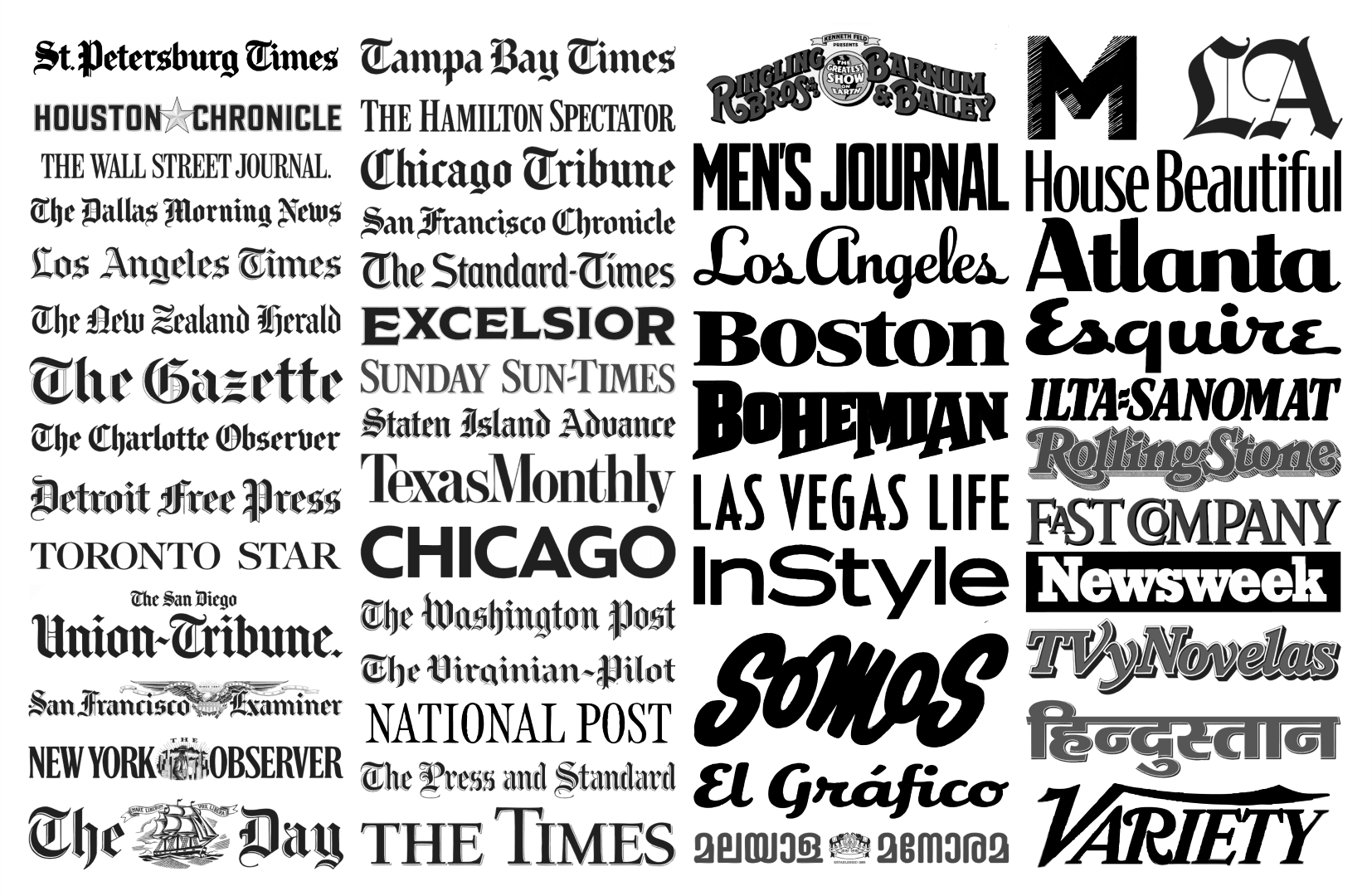
A collection of logos by Jim Parkinson, who always preferred to work in analog formats, and whose mastery of the pen was unmatched.
His work has been described as a contemporary expression of the vernacular traditions of lettering and signpainting. In his free time, he produced a number of super-realistic paintings of neon signs, showing his love for this style.
Parkinson is perhaps best known for designing the long-running Rolling Stone logo. He started working on a custom typeface for the publication in 1975 and was assigned to design a compatible logo, which appeared in 1977. Over the next 30 years, he continued to iterate the logo. Its bold swashes and expansive dimensionality became one of the most recognizable symbols of Americana, as Jesse Ragan said on XYType.com.
“Jim Parkinson created an indispensable ingredient of the visual brand of Rolling Stone: the logo. It was considered a big change from the original when it was introduced in the magazine’s 10th anniversary issue. Tweaked many times since, the logo has stood for the magazine for almost 50 years,” said Roger Black.
While continuing type design and lettering work, Parkinson turned to fine art, painting neon signs, which are showcased on his website. His work should continue to have a treasured presence in American culture.
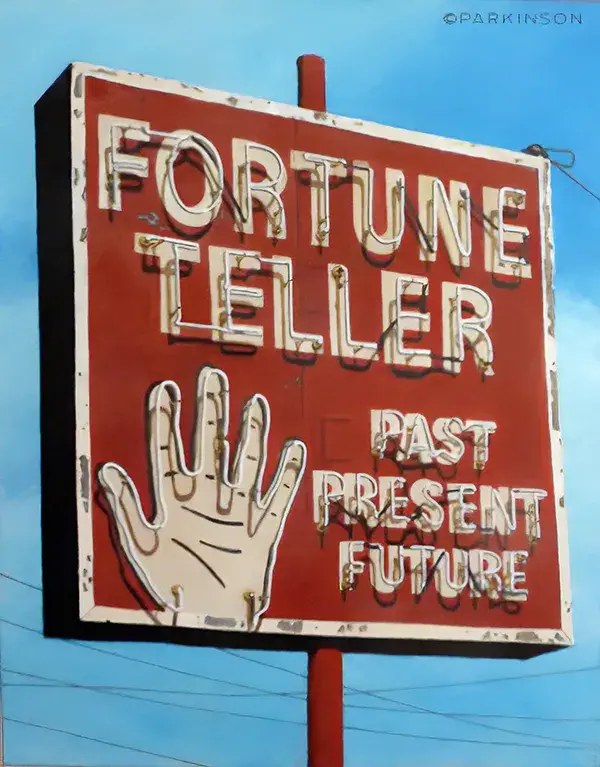
Fortune Teller. Reno, Nevada. Oil on canvas. “I went to art school hoping to become a painter. I graduated in 1963. It's been sixty years and I'm still fiddling around with it.”
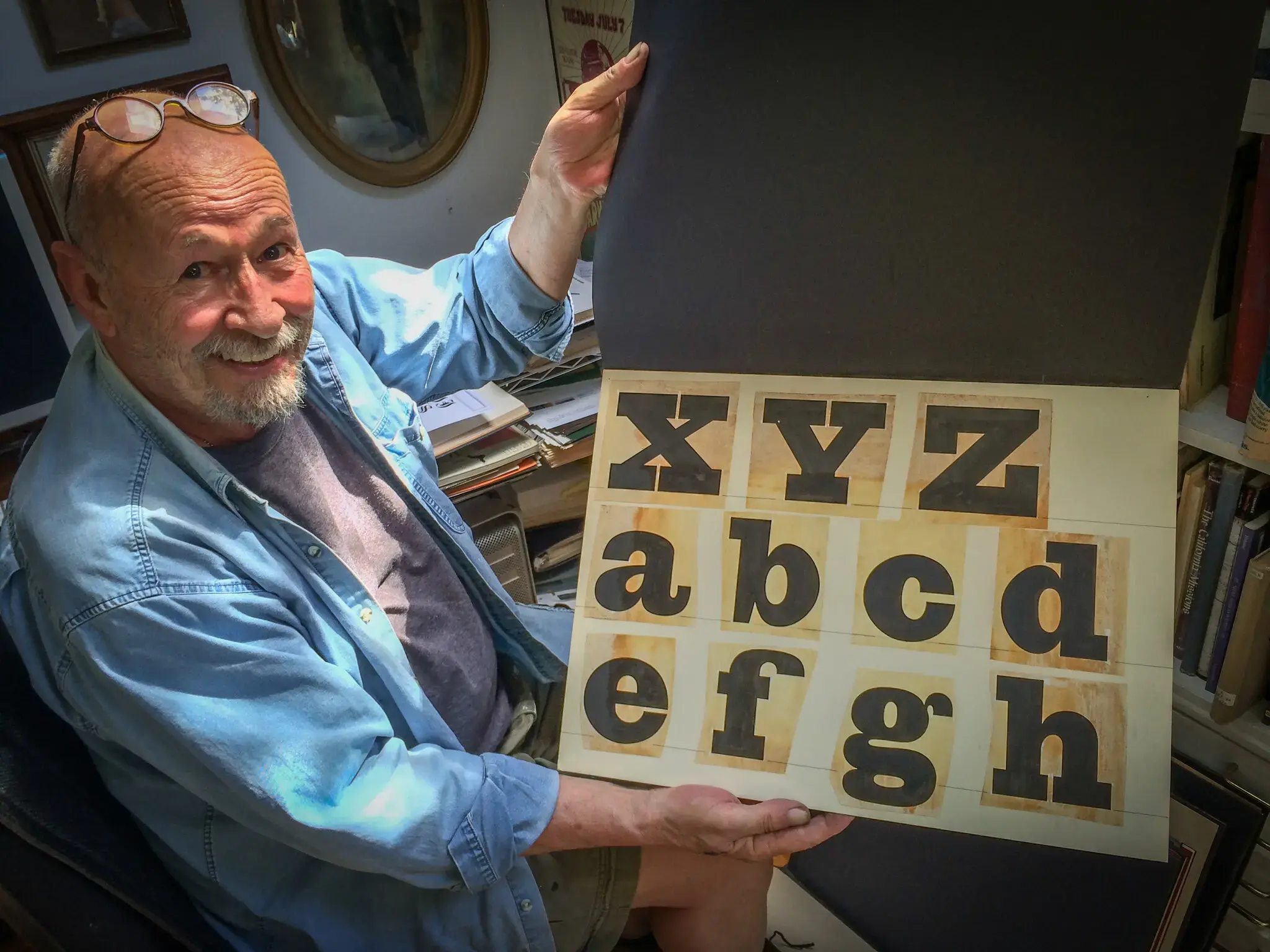
Before there was Giza: Hand-drawn letters from Egiziano, the Nebiolo slab (c. 1895). This pasteup was shot down in the Rolling Stone camera room. The film negatives were stripped into a two-inch font for the Phototypositor machine.
Parkinson was known for his generosity, openness, and encouragement towards younger designers. He was resolutely down to earth in a remarkably impactful way.
He died on June 26 at the age of 83. Jim Parkinson is survived by his wife, book artist Dorothy Yule. A memoir from Letterform Archive is forthcoming, and a memorial is planned for this fall around his birthday on the 23rd of October.